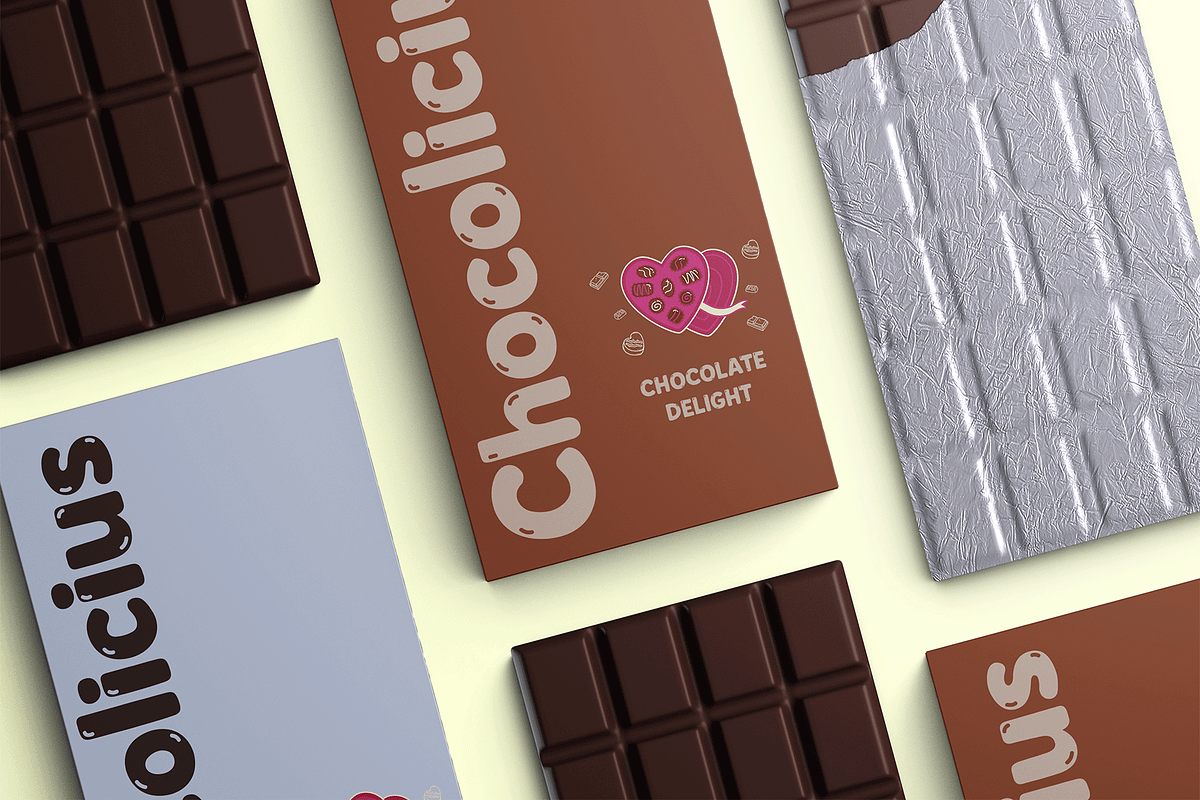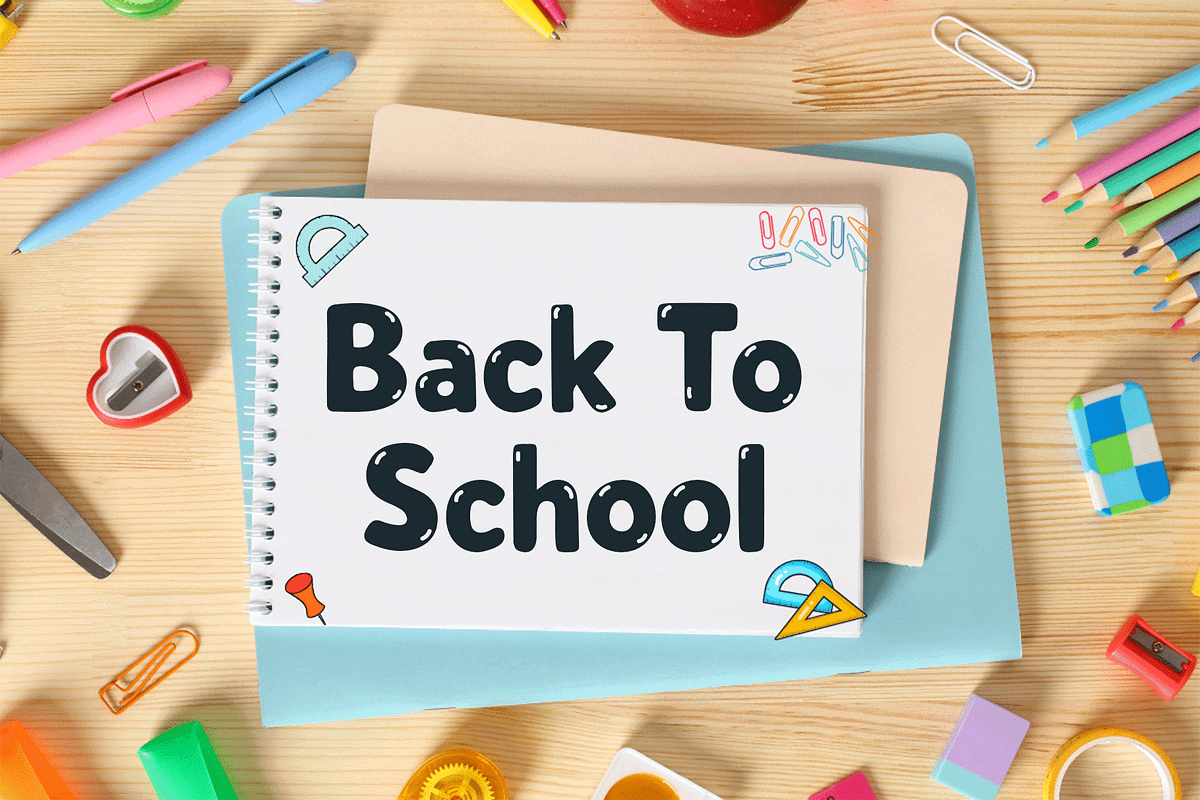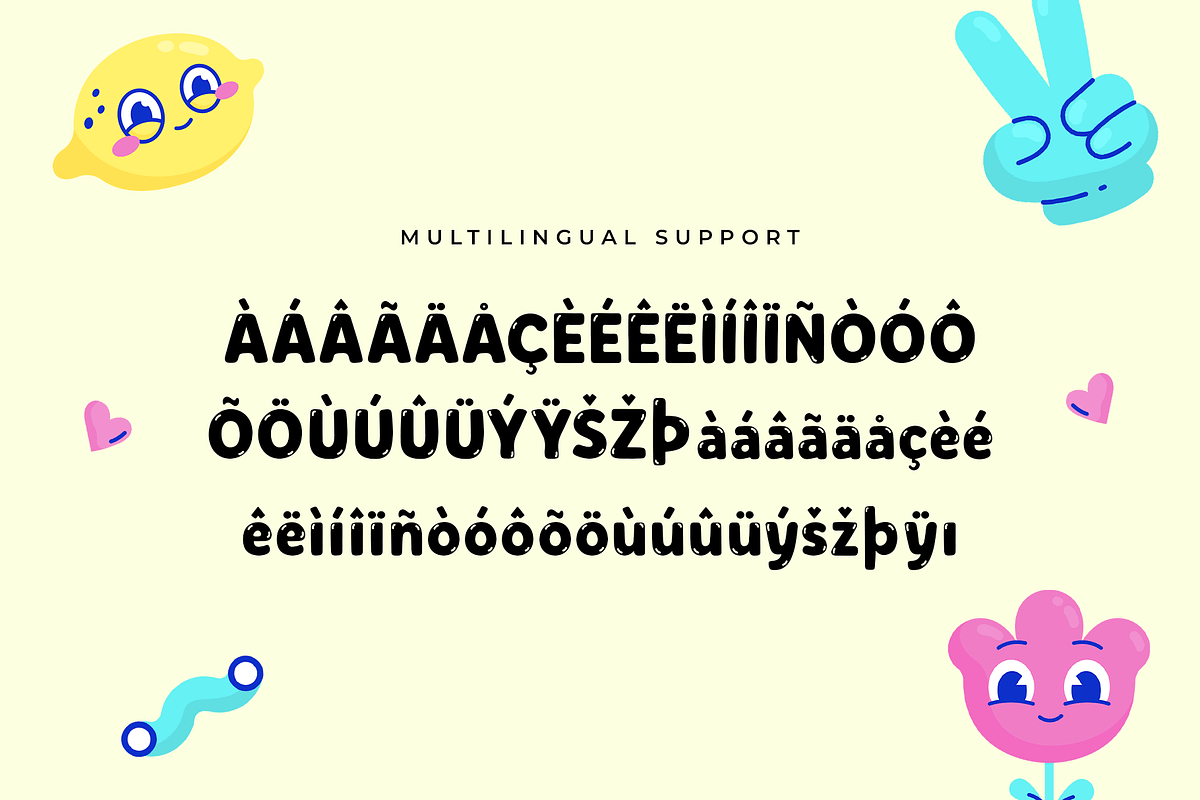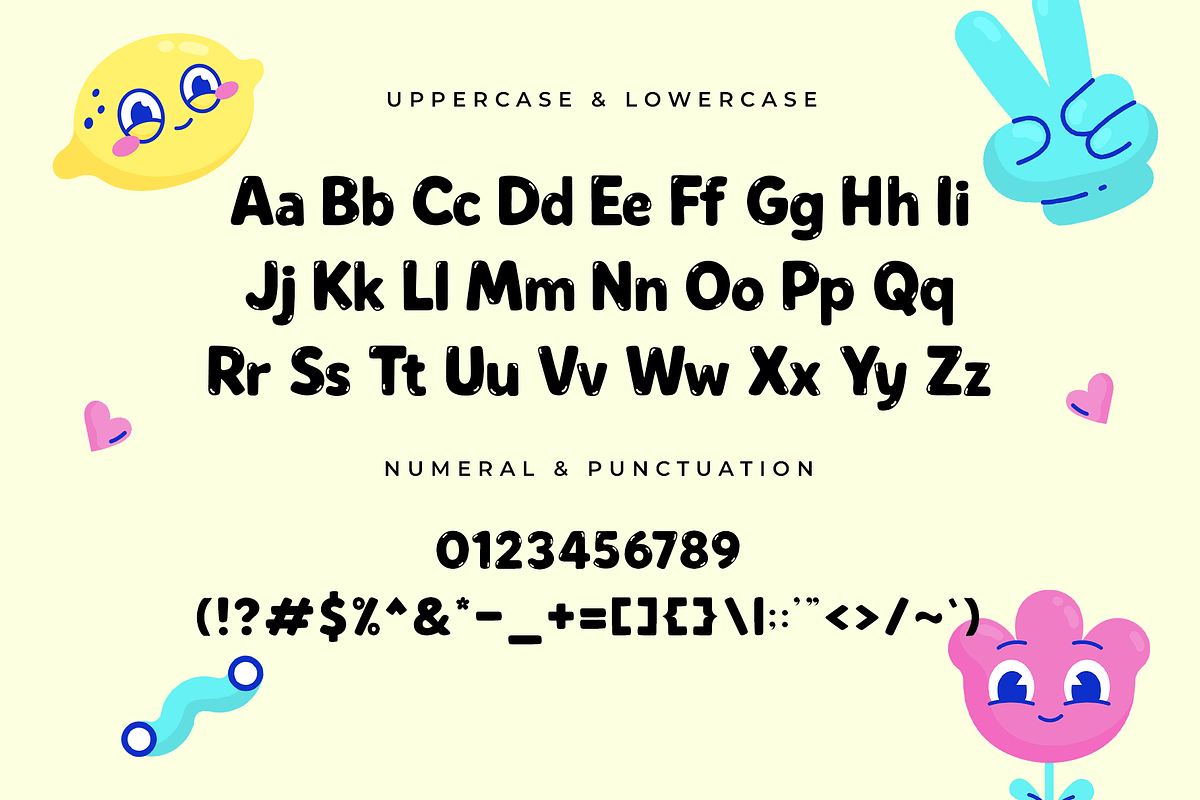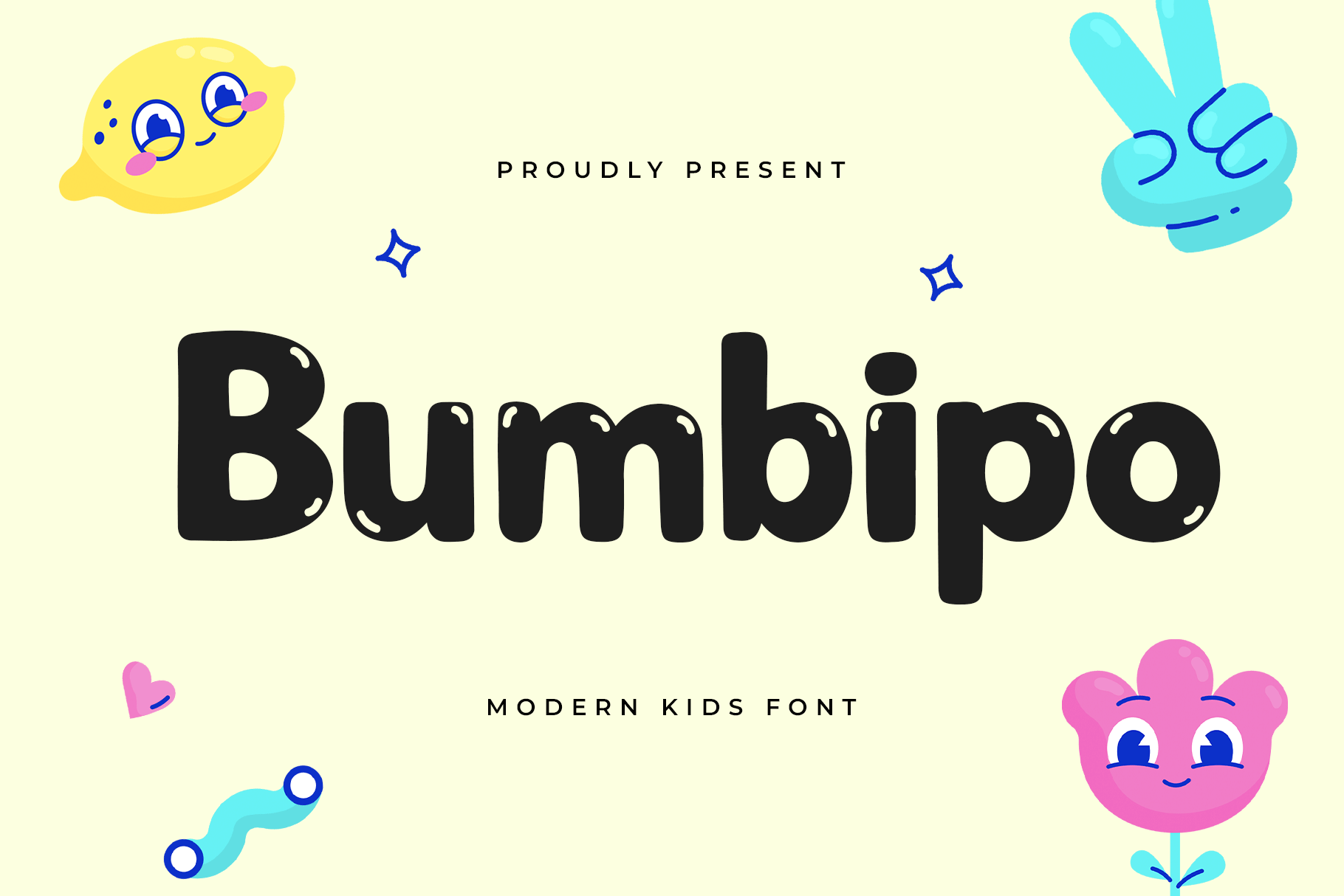
Bumbipo – A Modern Kids Font
Bumbipo is a modern kids font crafted with a joyful and friendly vibe, making it perfect for capturing the spirit of childhood. Its rounded, bubbly letterforms are designed to be both playful and highly legible, ideal for children’s projects and creative designs that need a fun twist.
From storybooks and educational materials to toy packaging, party invitations, and kids-themed branding, Bumbipo adds an irresistible charm to every project. The font features clean, modern strokes with a soft personality that resonates with young audiences and those young at heart.
Let Bumbipo bring your playful ideas to life with a fresh, modern touch!